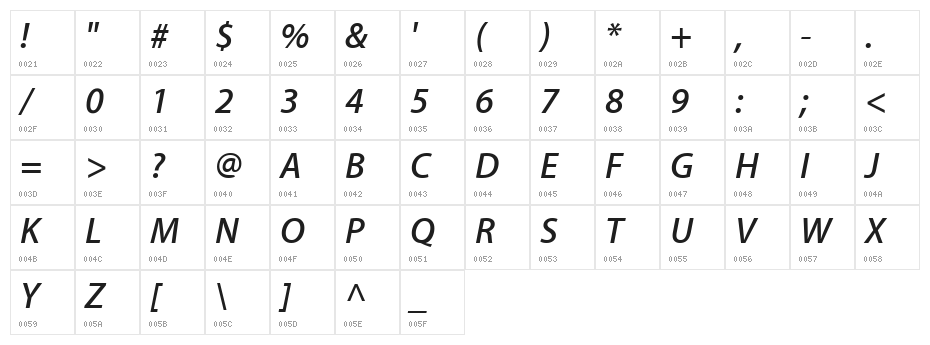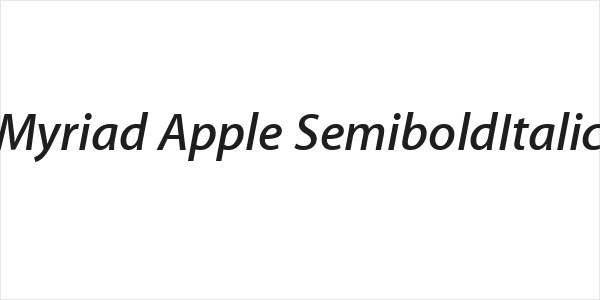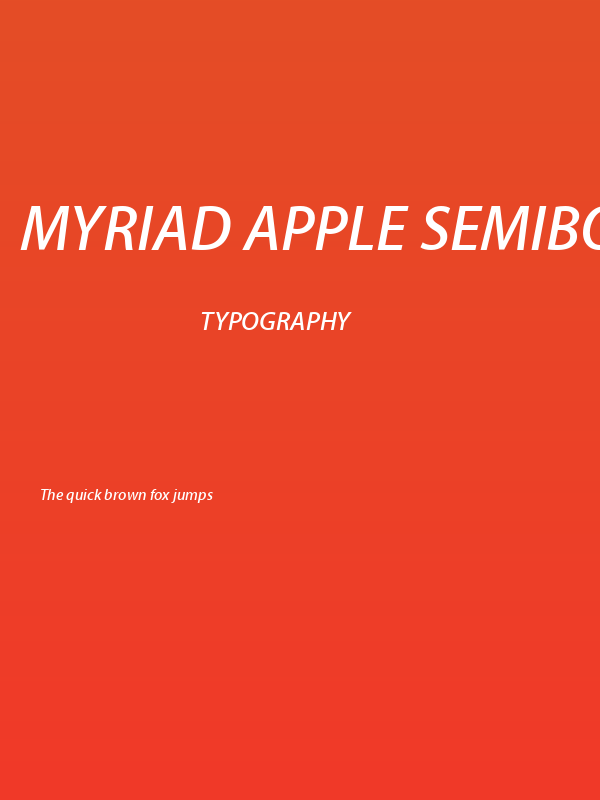
Myriad Apple SemiboldItalic Font
Myriad Apple SemiboldItalic Description
This font presents a clean and modern aesthetic with a slight italic slant, giving it a dynamic and forward-moving appearance. The semi-bold weight provides a strong presence without being overpowering, making it versatile for various design applications. The characters are well-proportioned with a consistent stroke width, ensuring readability across different sizes. The spacing between characters is normal, allowing for clear legibility in both large and small text. Its sans-serif nature contributes to a contemporary look, suitable for digital and print media.